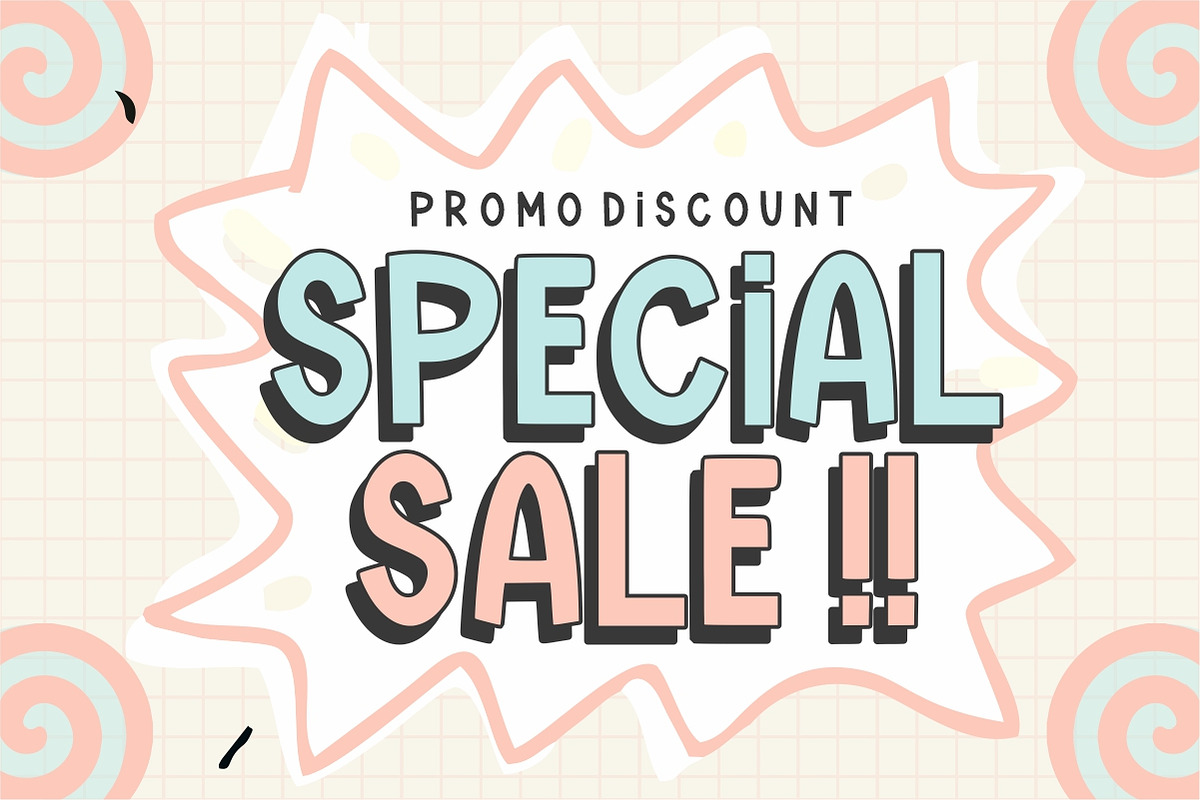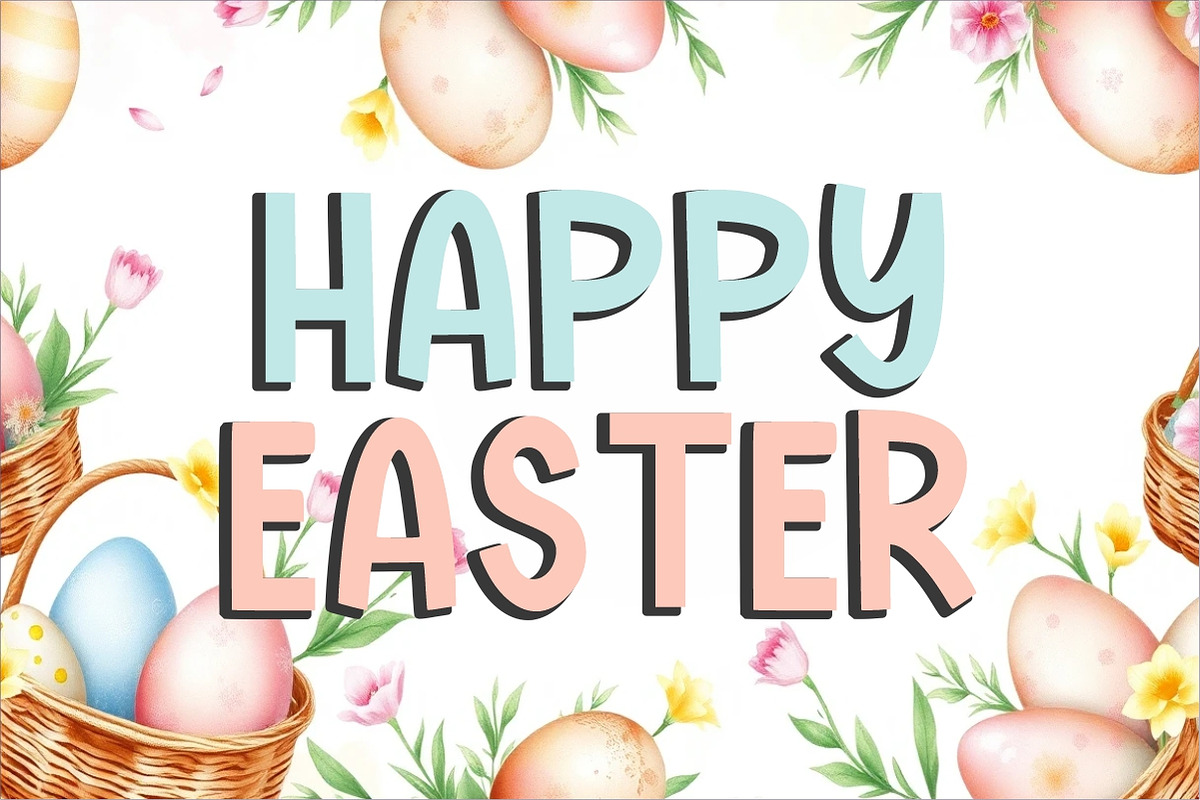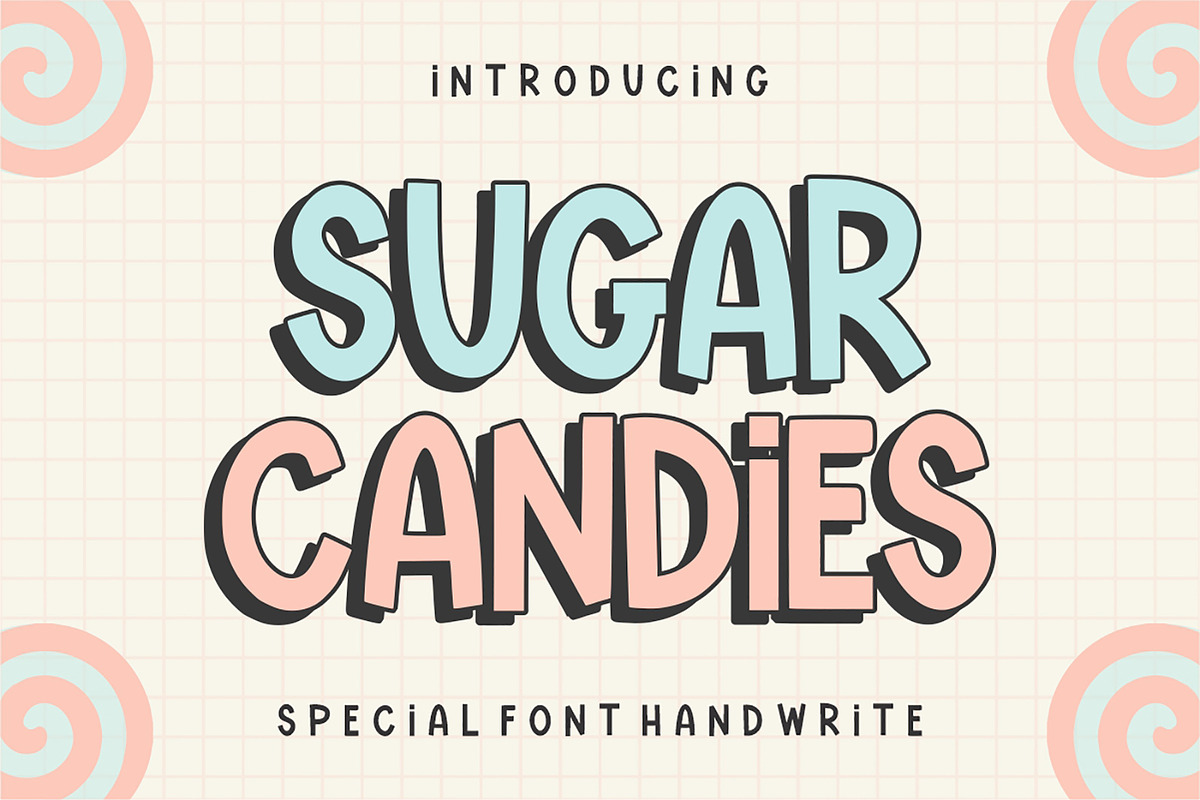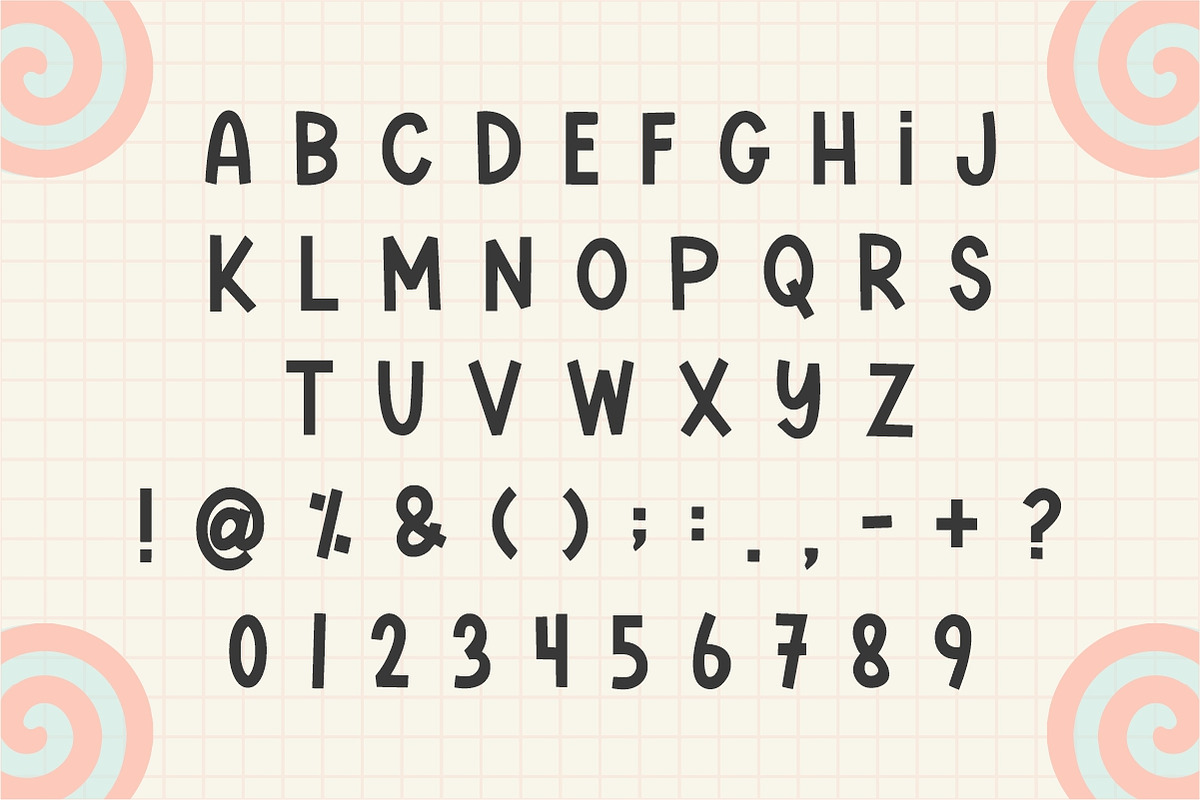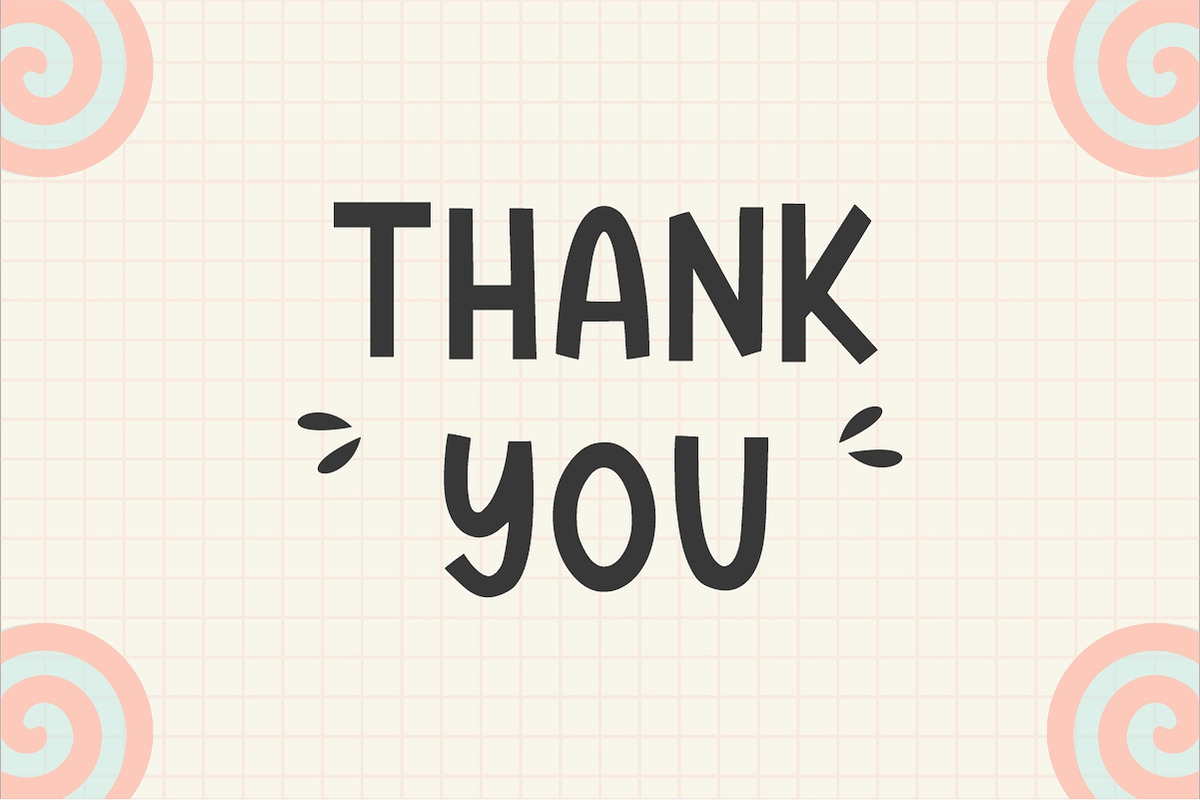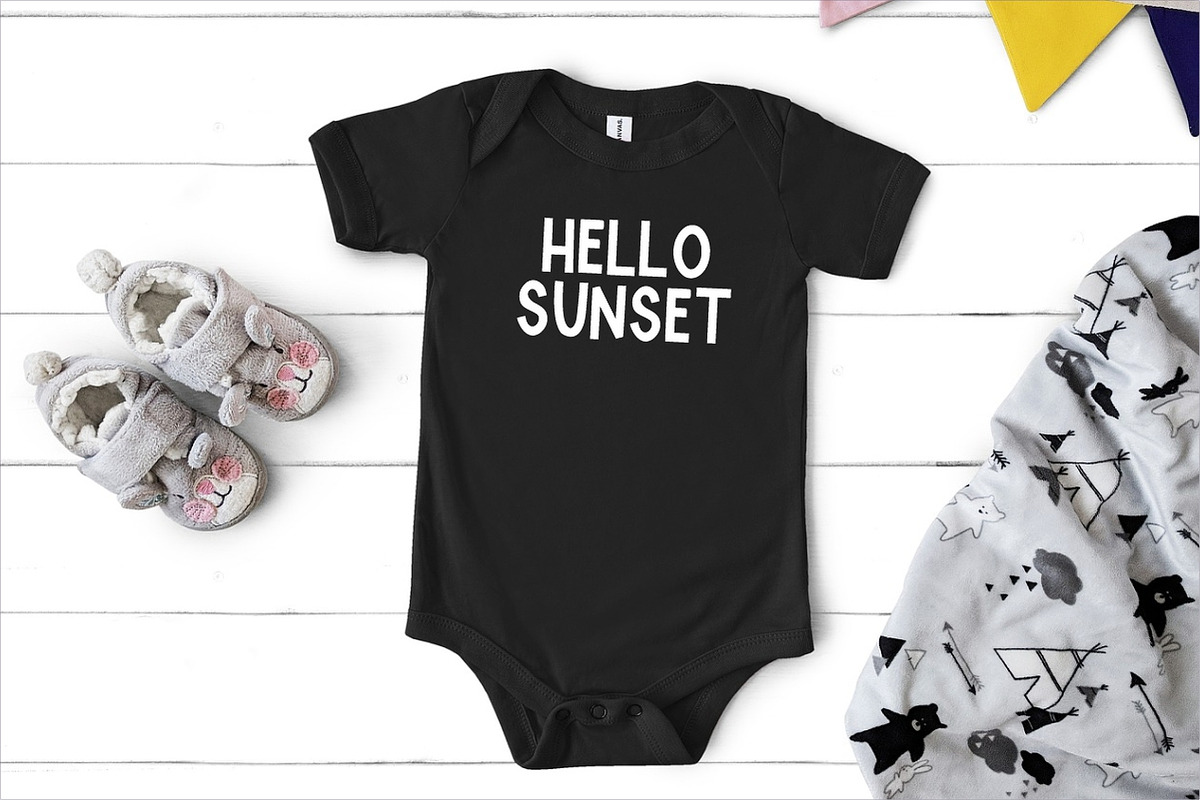
Sugar Candies
Sugar Candies is a fun and playful handwritten font with a bold, bubbly style. Its thick strokes and subtle irregularities give it a hand-drawn charm, making it perfect for children’s designs, candy packaging, playful branding, invitations, and more. With a sweet and whimsical feel, Sugar Candies brings joy and creativity to any project.